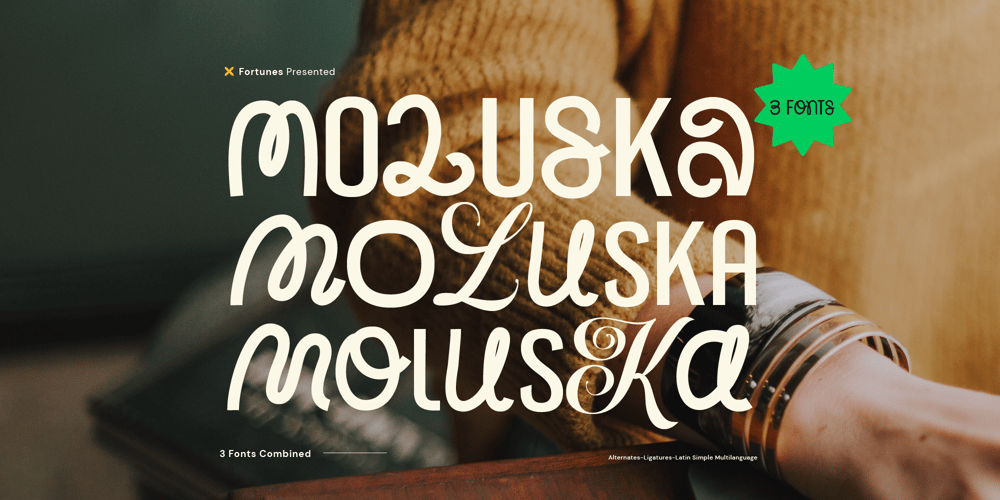
Fd Moluska Font Family was designed by Ramandhani Nugraha and published by Fortunes Co. Fd Moluska contains 1 styles and family package options. Moluska is an experimental combination font. include 3 fonts that have a very different style and appearance, make this font look unique. In this groundbreaking typographic exploration, we venture into the intersection of sans serif and script typefaces, melding two seemingly disparate styles into a harmonious and visually captivating experiment.This font equipped with several features such as alternative characters, ligatures, and multi-language support that makes it easier for you to design. This font is perfect for your design needs such as poster design, logo design, branding, social media design, book, magazine, etc. 3 Fonts combined Ligatures ( fi, fl, ae, oe, ll, ffi, ss, oo, oi, tt, st, ti, iti, sh ) Latin Simple !”#$%&'()*+,-./0123456789 :;=?@[]^_`{|}~¡¢£¤¥¦§¨©ª«¬®¯°±²³´¶·¸¹º»¼½¾¿ÆÐ×Þßæ ð÷þĐđıŁłŒœŠšŽžƒÀÁÂÃÄÅÇÈÉÊËÌÍÎÏÑÒÓÔÕÖØÙÚÛÜÝàáâãäåçèéêëìíîïñòóôõöøùúûüýÿŸ ˆˇ˘˙˚˛˜˝μ–—‘’‚“”„†‡•…‰‹›⁄€™−ꝏƣfistitillshsstittflffi Alternates